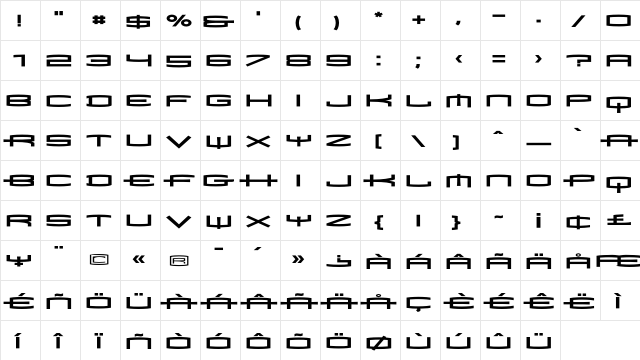
Mata Bold
Design Context for Mata Typeface
Mata is a composed and adaptable typeface that performs quietly and consistently across a wide range of design contexts. The heavy weight commands attention and anchors typographic hierarchies.